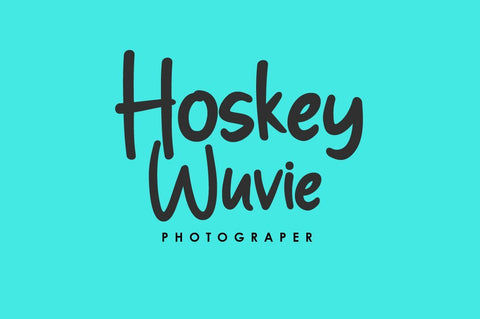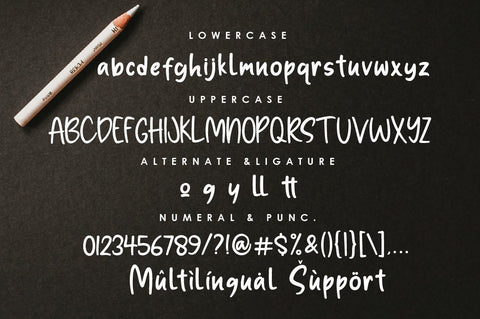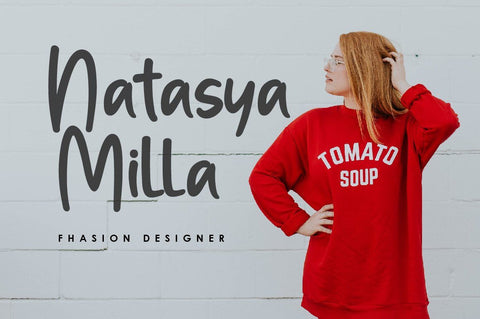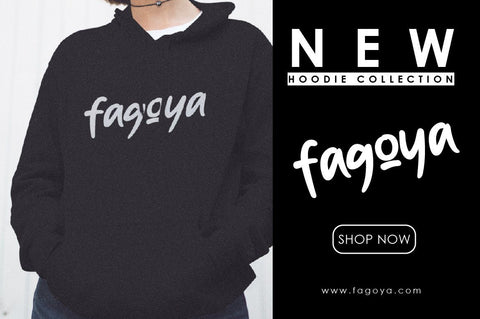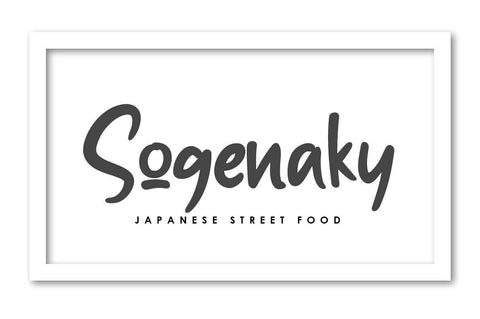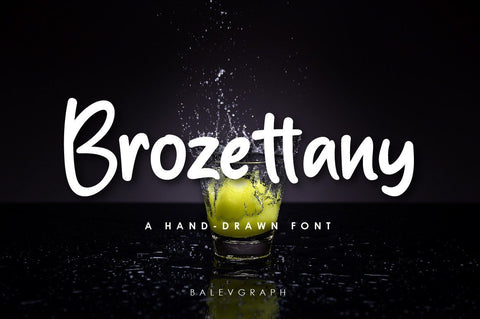
Brozettany Hand-drawn Font
Brozettany is an elegant and dainty handwritten font that features sweet and delicate swashes. This original look will appeal to a wide range of crafty ideas, from letterheads and titles, to stationery.
- Uppercase, Lowercase, Numerals & Punctuations
- Ligature & Alternate
- Multilingual support